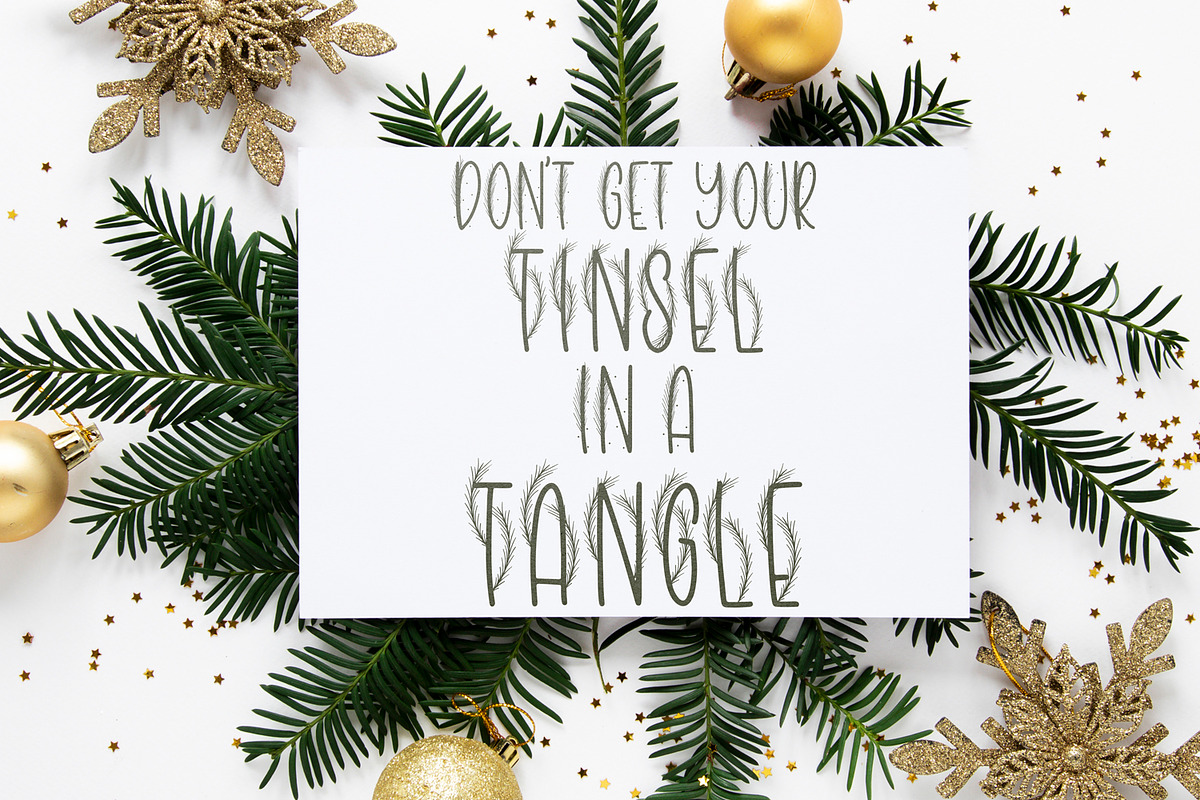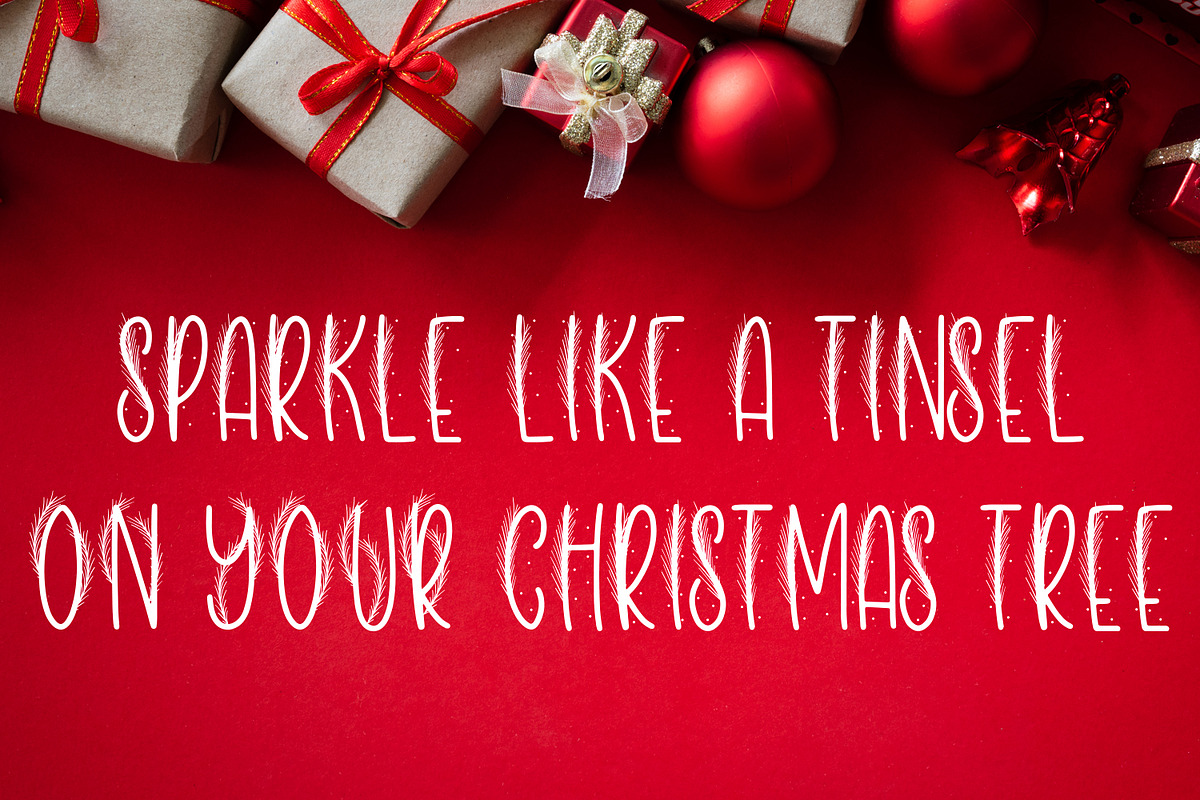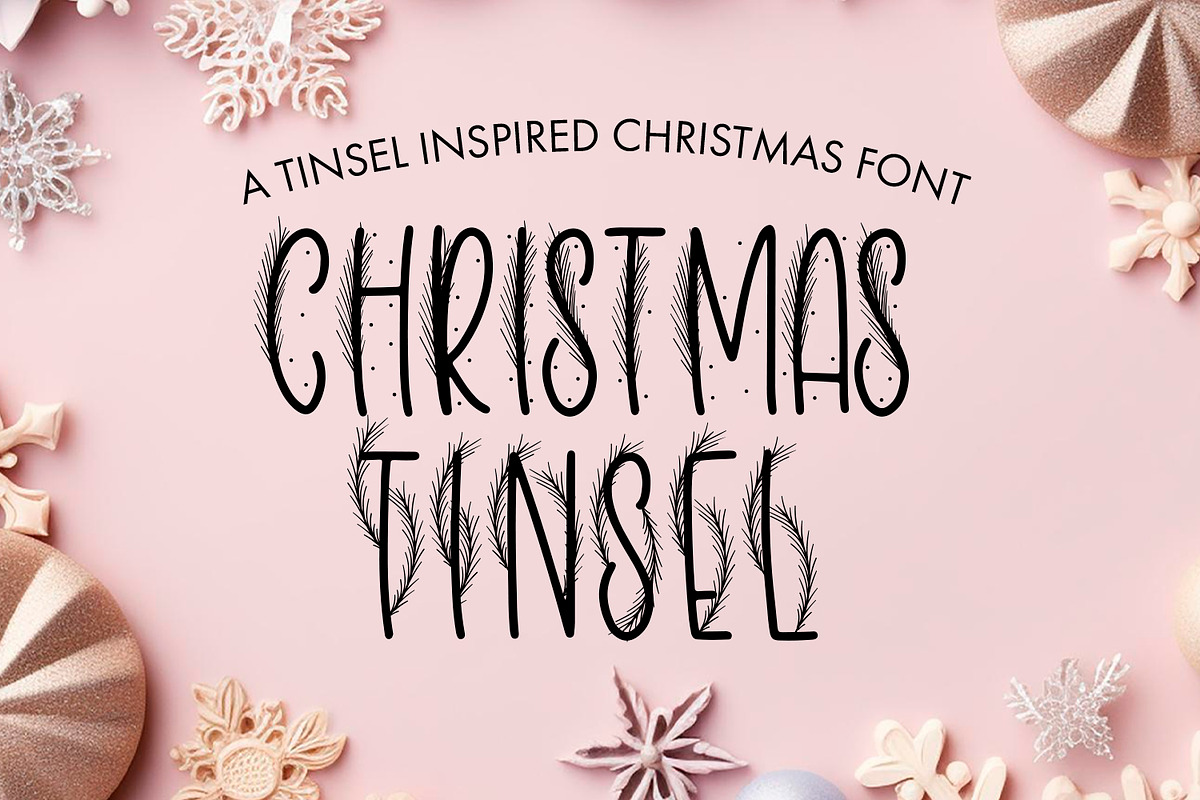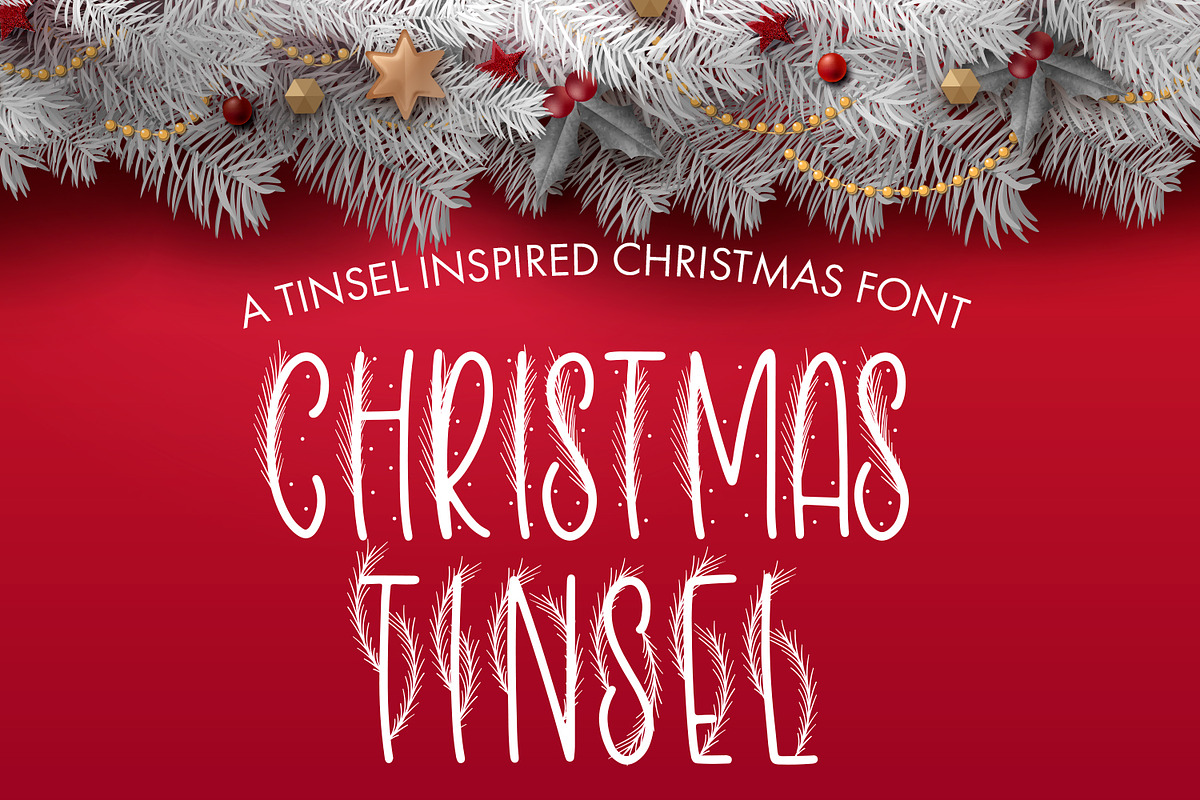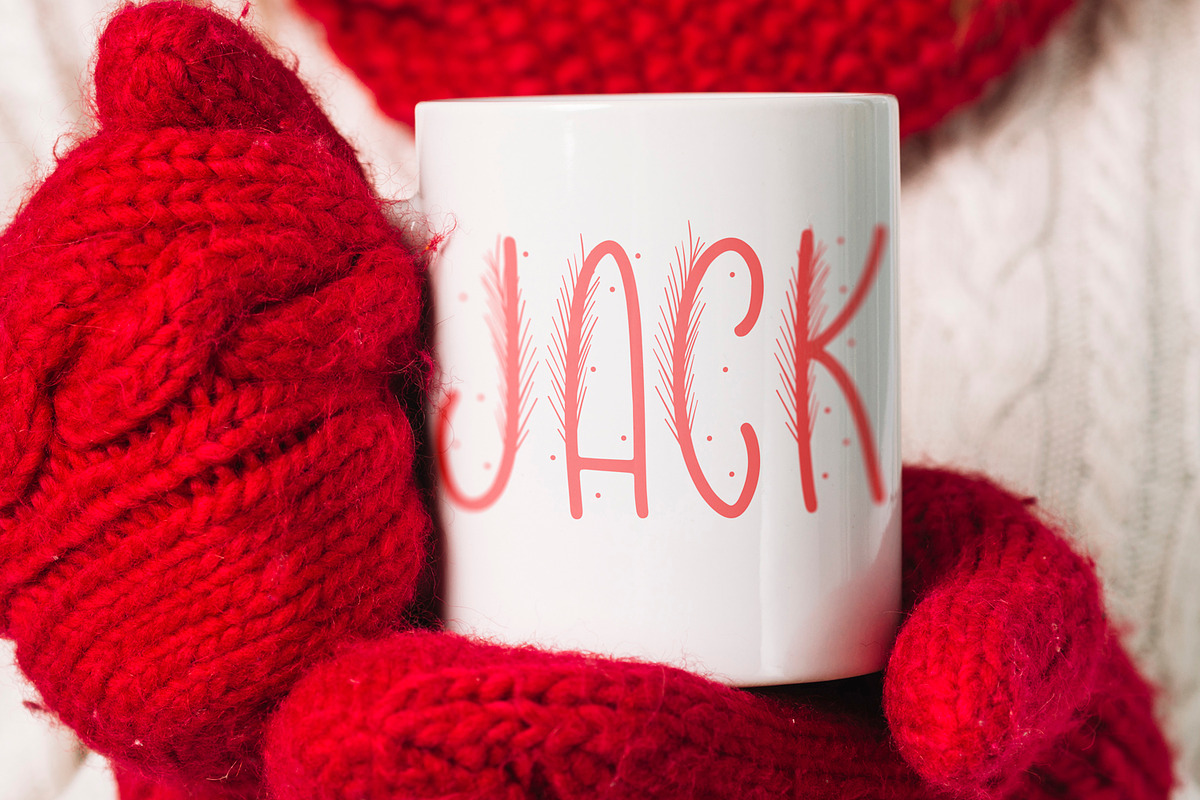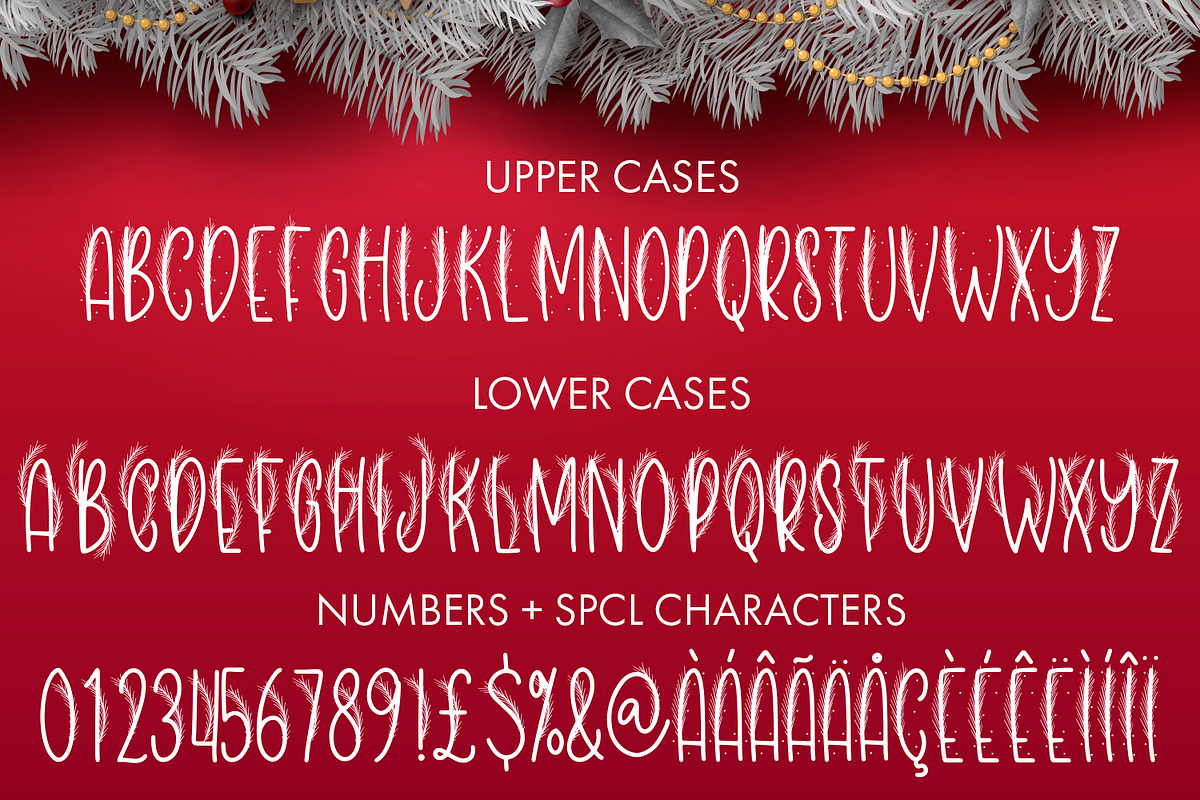
Christmas Tinsel
Christmas Tinsel - A Handwritten Font Decorated With Tinsel
Introducing 'Christmas Tinsel' – a festive font adorned with the shimmering elegance of tinsel! Spread holiday cheer with this whimsical typeface, perfect for adding a touch of holiday magic to your designs.
This font can be used for anything such as T-Shirt designs, phone cases, greeting cards, invitations, mugs and so much more! Be creative but most importantly have fun!
- Christmas Tinsel - Comes with Uppercase A-Z and lowercase a-z letters, 0-9 numbers, stylistic alternates, limited punctuation and supports Western European Languages